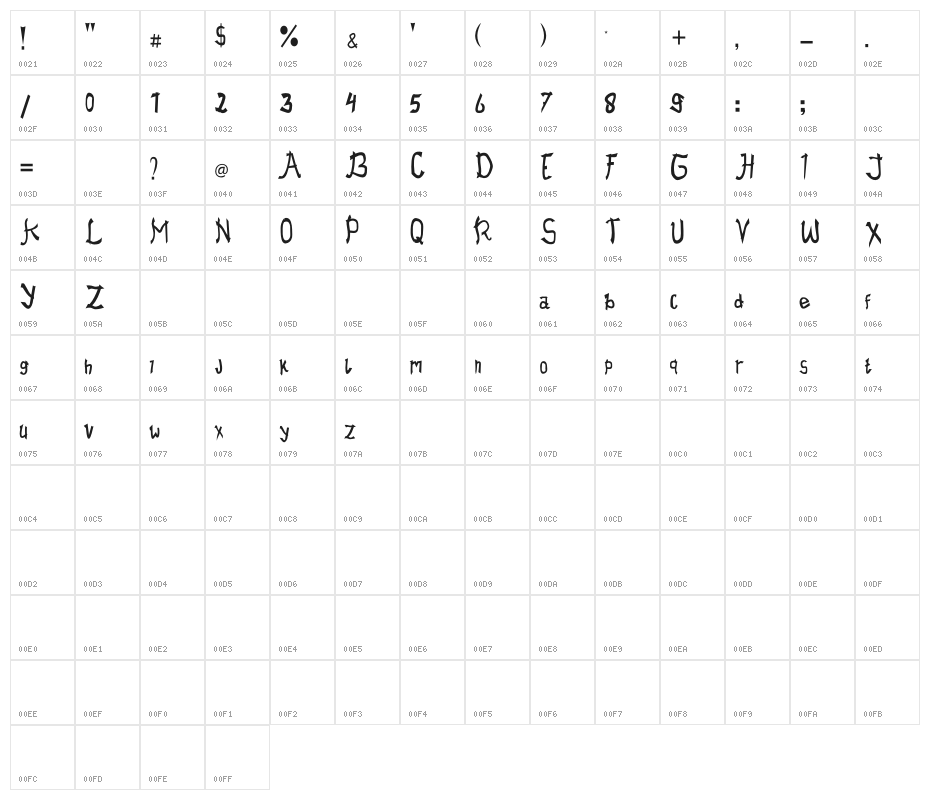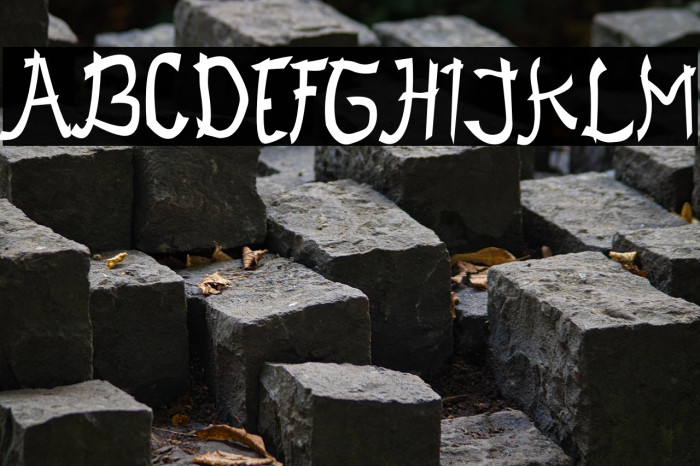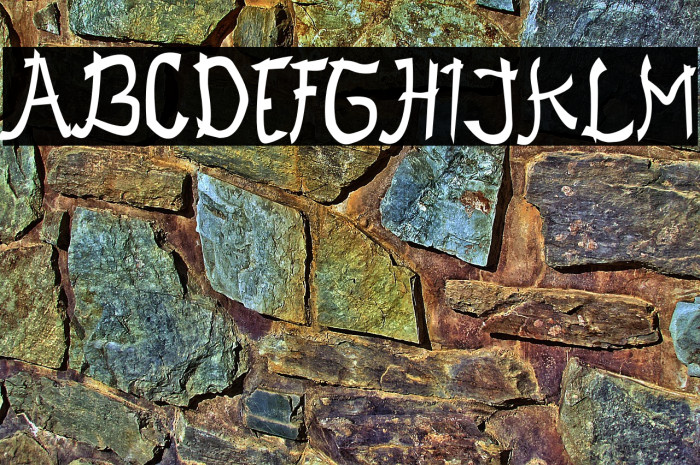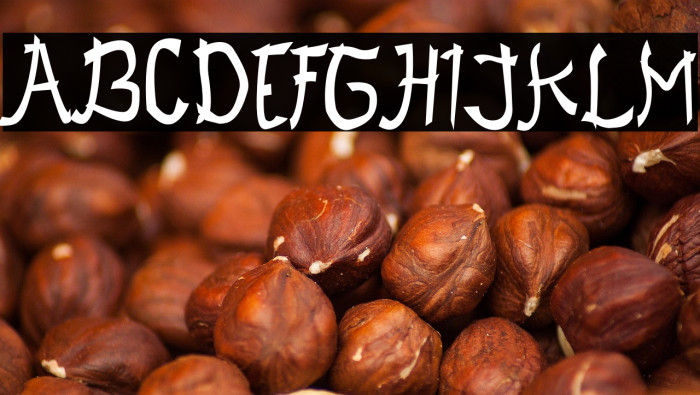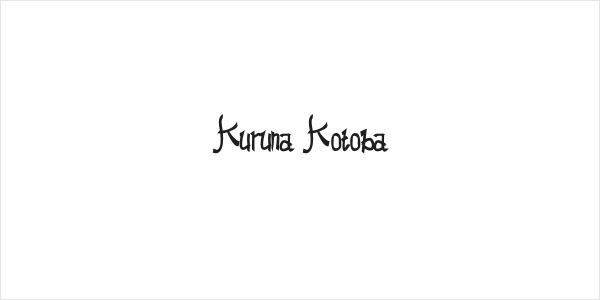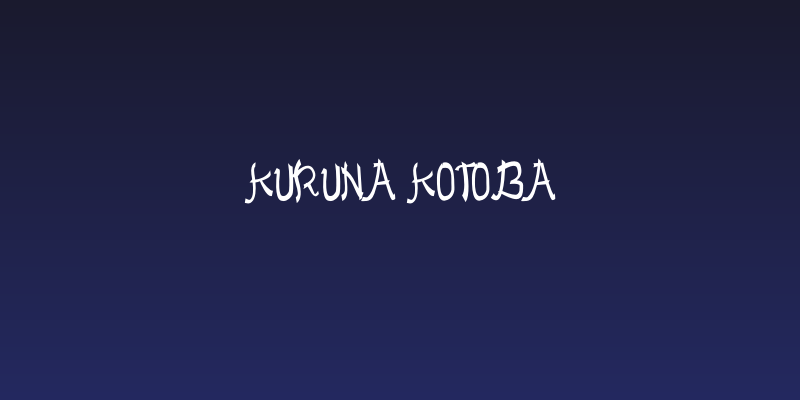
Kuruna Kotoba Font
Kuruna Kotoba Description
This font features a unique and artistic style, characterized by its sharp, angular lines and dynamic forms. The letters exhibit a hand-drawn quality, with irregular strokes that give it a lively and energetic appearance. The uppercase letters are bold and commanding, while the lowercase letters maintain a consistent style, adding a touch of whimsy. The numerals are equally distinctive, with a playful yet bold design. Special characters are creatively integrated, maintaining the overall aesthetic. This font is ideal for projects that require a bold, artistic touch.
| Overall Style | Artistic, Energetic |
| Proposed Projects | Ideal for posters, album covers, branding, and creative projects that require a unique and artistic flair. |